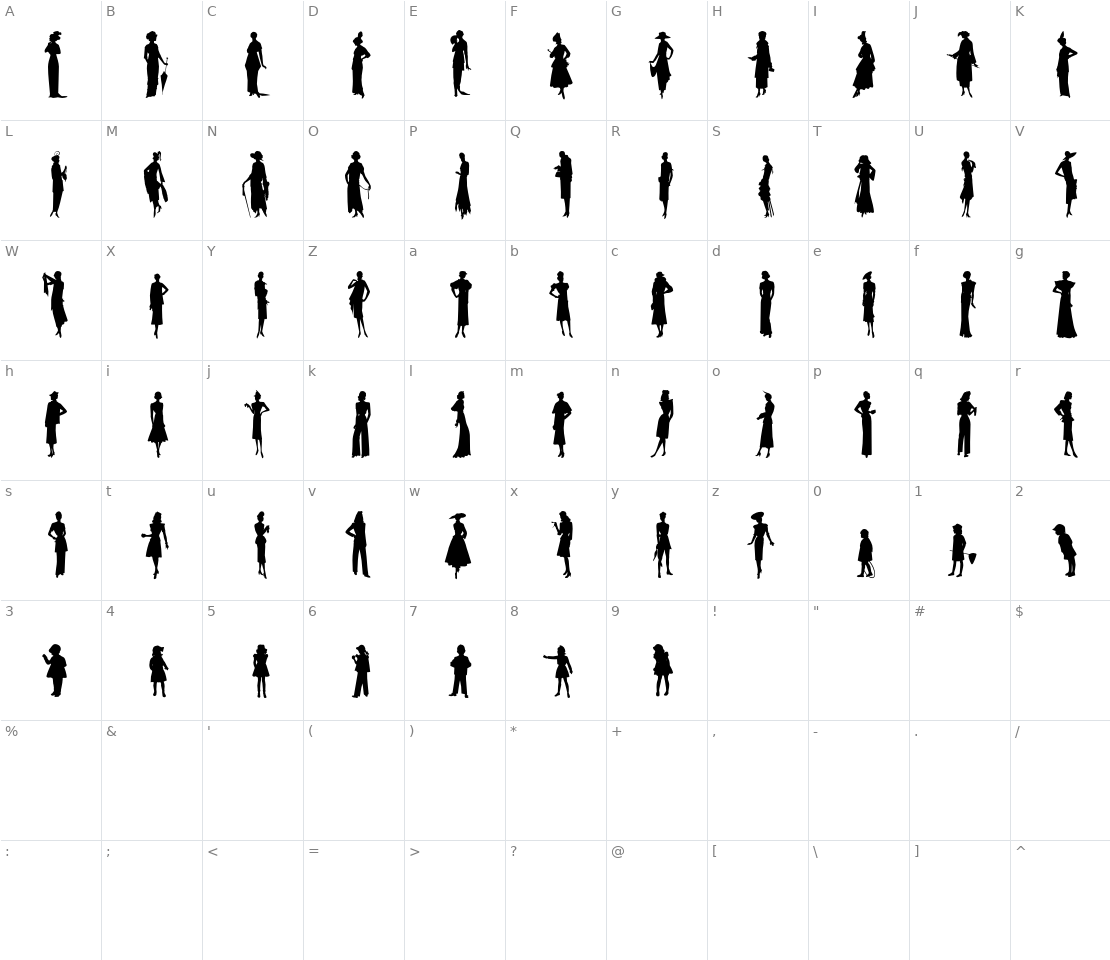
Sewing Patterns 2
Sewing Patterns 2 is a dingbat font by Lauren Ashpole featuring silhouettes of women in vintage clothing, the kind of fashion illustrations you'd find on mid-century sewing pattern envelopes. Each glyph is a different figure or outfit, making it a useful resource for retro fashion projects, crafting blogs, or any design that needs stylized female figures with that classic dressmaking aesthetic.